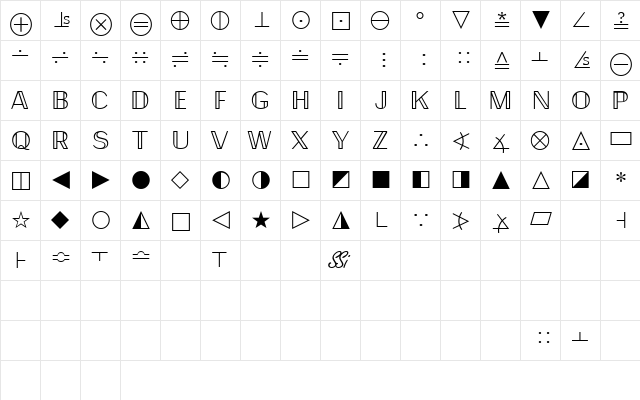
QuantaPiFourSSK Regular Font Preview
QuantaPiFourSSK Regular
Design Context for QuantaPiFourSSK Typeface
QuantaPiFourSSK offers clean, dependable letterforms without strong stylistic allegiance, making it a practical choice for designers who need flexibility.